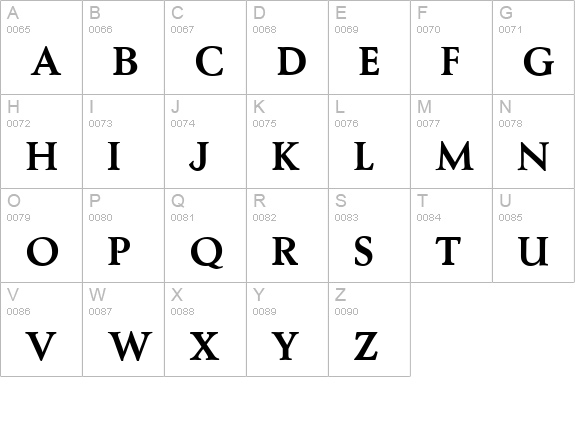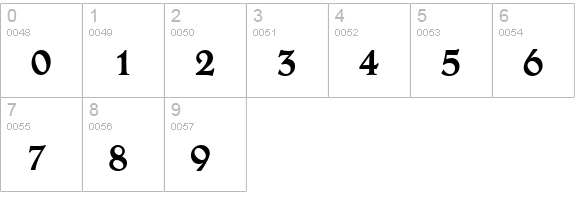
Aesop-Bold Font Details
Aesop-Bold is a strong, high-contrast variant in the Aesop typeface family \xE2\x80\x94 well suited to headlines, attention-grabbing titles, and strong calls-to-action.
Aesop-Bold is a striking and versatile typeface that exudes confidence and modernity. With its bold, clean lines and balanced proportions, Aesop-Bold is perfect for adding a touch of sophistication to any design project. Whether you're creating a sleek logo, eye-catching poster, or elegant website, this font will make a bold statement. The best part? Aesop-Bold is completely free to download at FontsMarket.com. This means you can access this high-quality font without breaking the bank. So go ahead and elevate your designs with Aesop-Bold today!